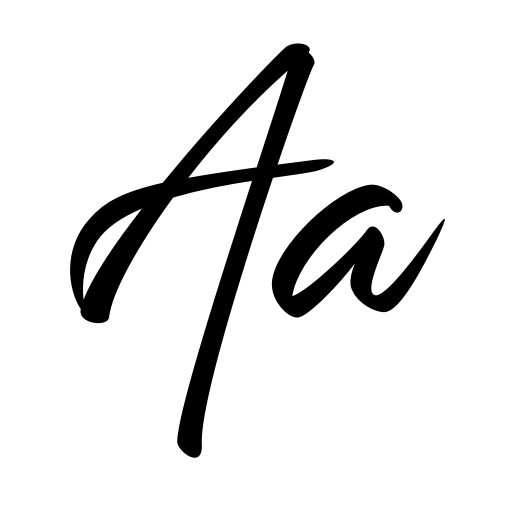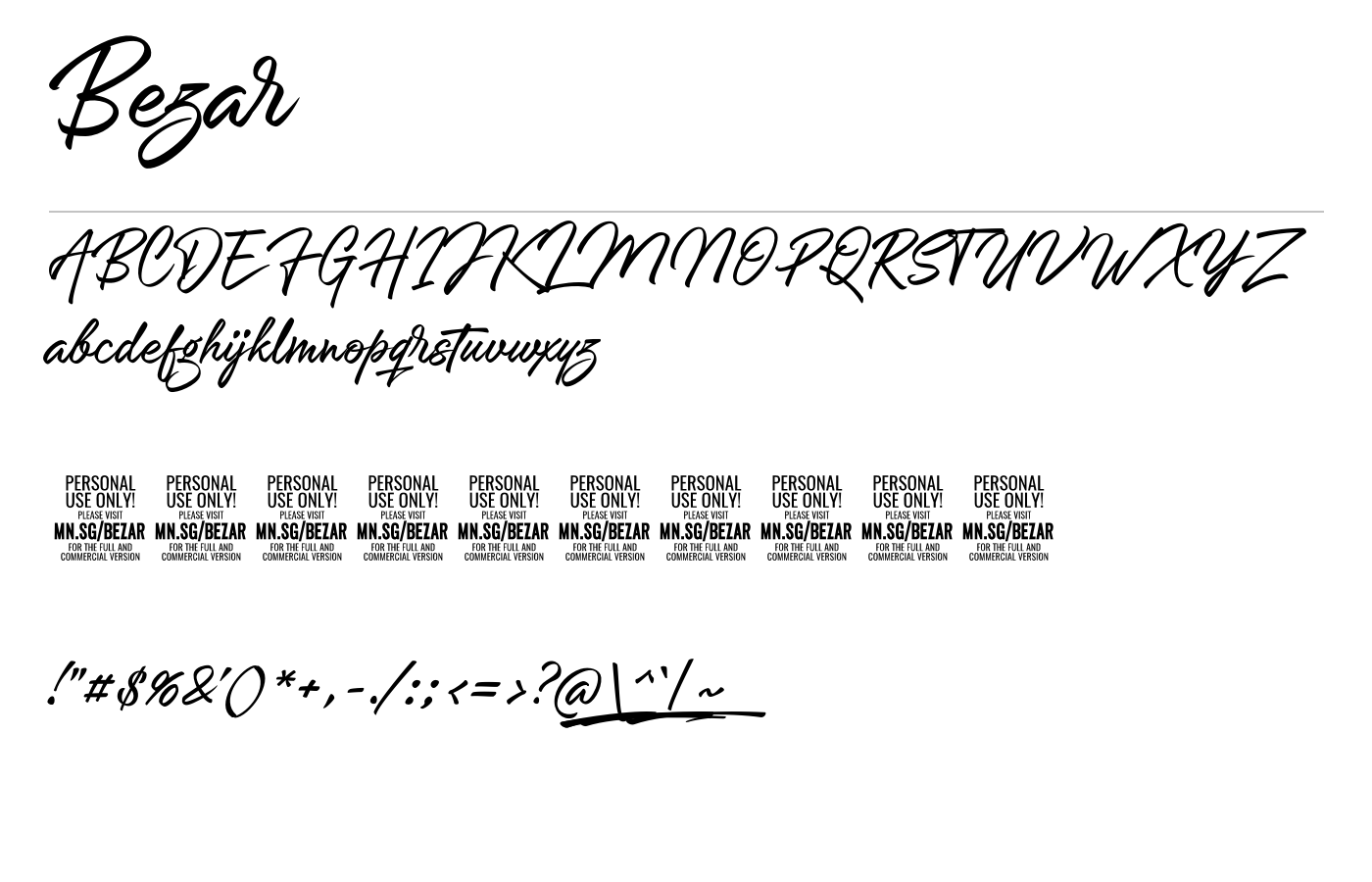
Bezar is a stylish script font with a casual, handwritten feel characterized by flowing, dynamic strokes and moderate contrast. Its lively, slightly edgy letterforms with unique flourishes make it perfect for adding a personal and creative touch to branding, invitations, and headlines where a playful yet elegant vibe is desired. This font works well in designs that need a contemporary, artistic flair without sacrificing readability.
Bezar Font
About Bezar Font